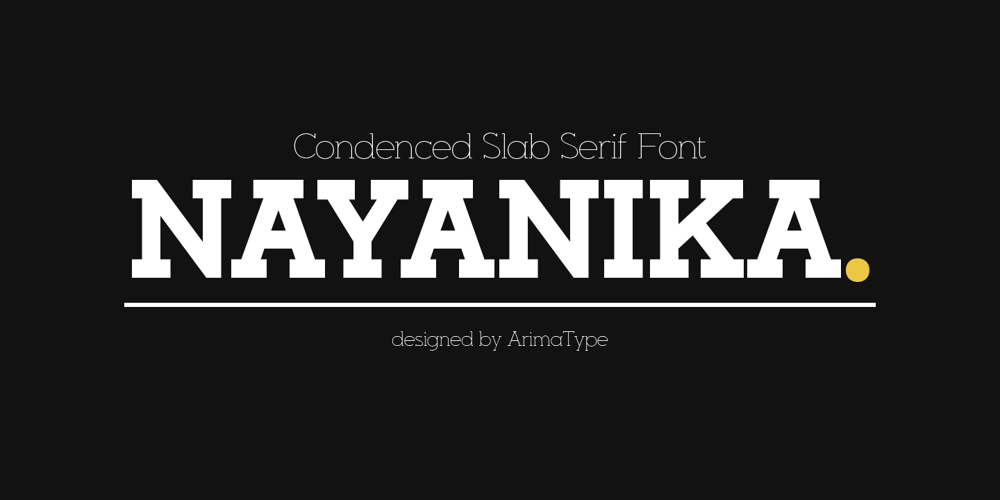
Nayanika Slab
Nayanika Slab font
Nayanika Slab Font Family was designed by Amri Mauludin and published by ArimaType. Nayanika Slab contains 13 styles and family package options. Nayanika is a geometric slab serif made with a mono-line concept and variant style. Inspired by old western and magazine designs. Nayanika has a straight and consistent line to give neat looks. A font that gives you strong, bold typography with lots of different styles that make up the family giving users some cool options when creating artwork. Features: Uppercase & Lowercase Number & Symbol Multi-language Ligatures​​​​​​​ Happy Creating! ArimaType@gmail.com #1266576